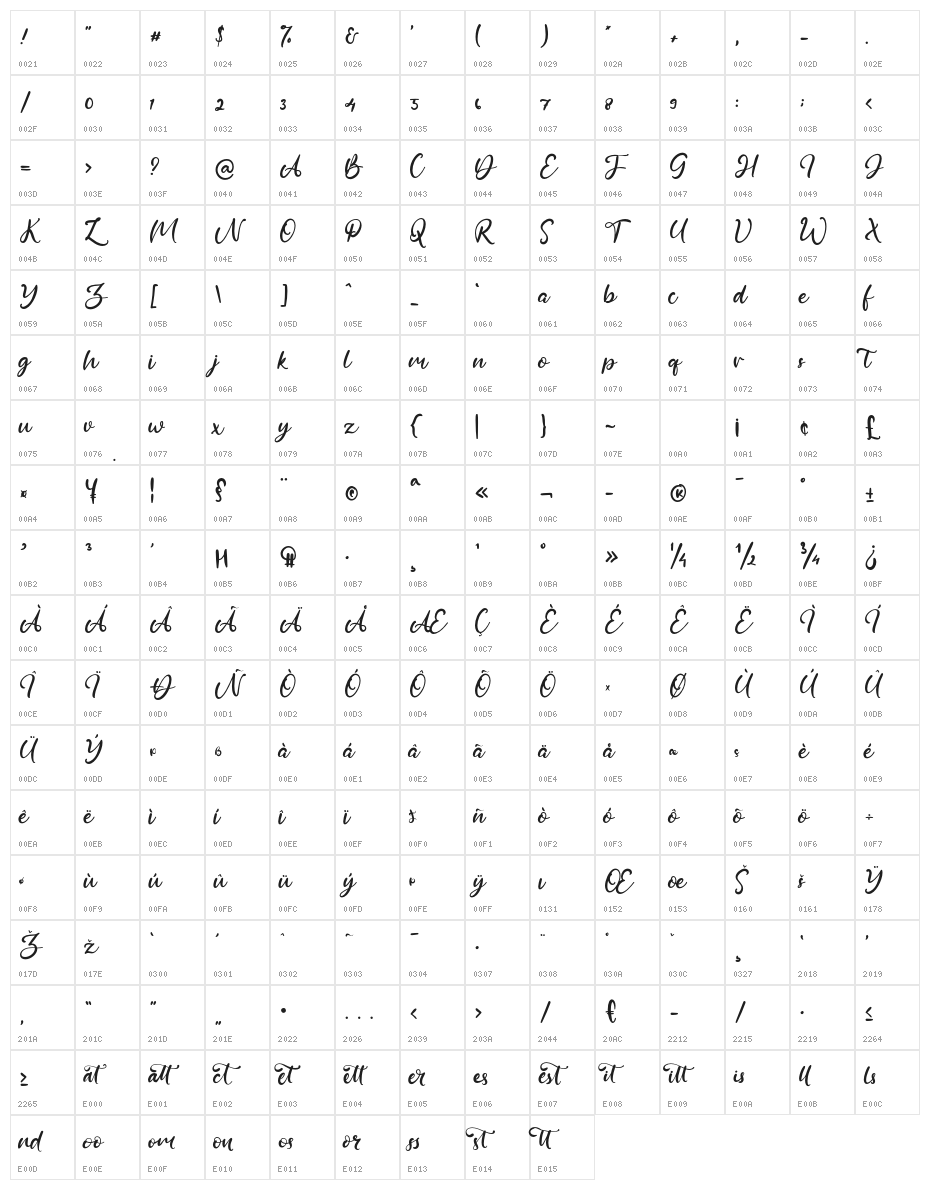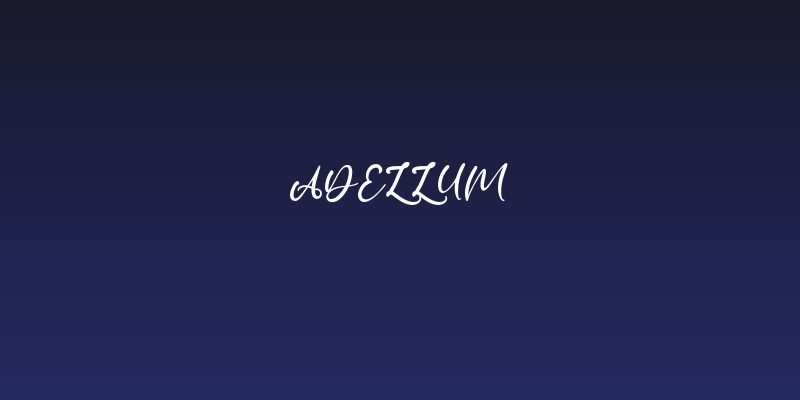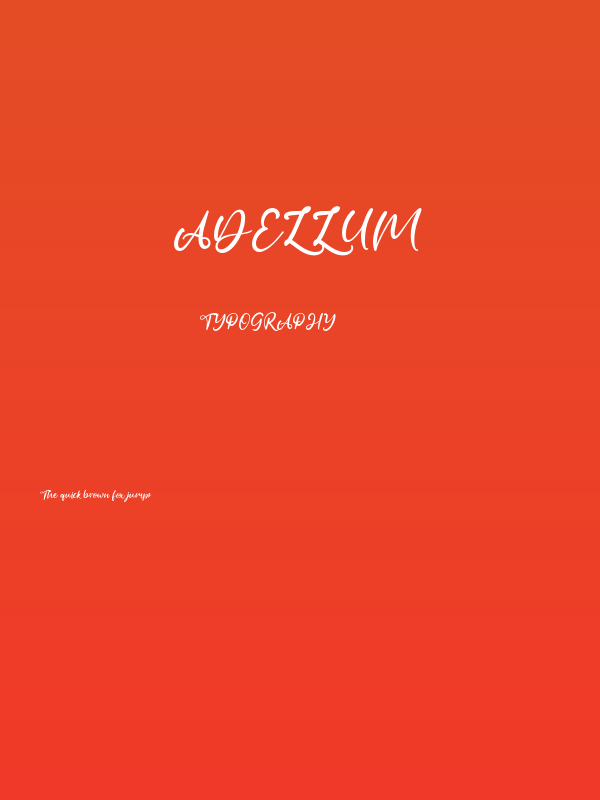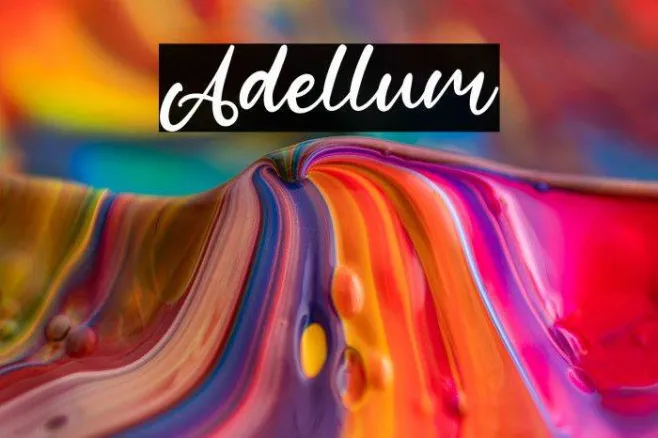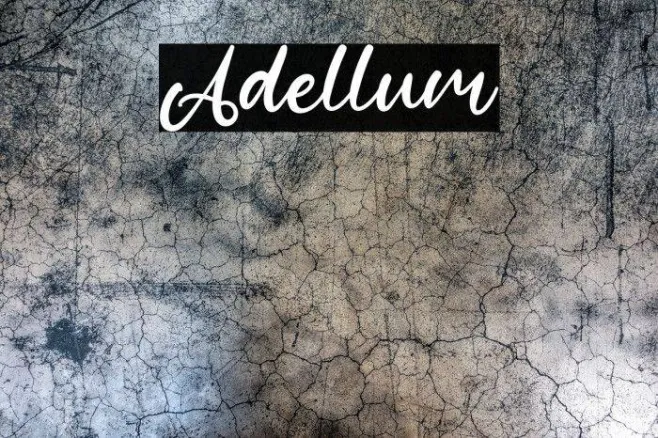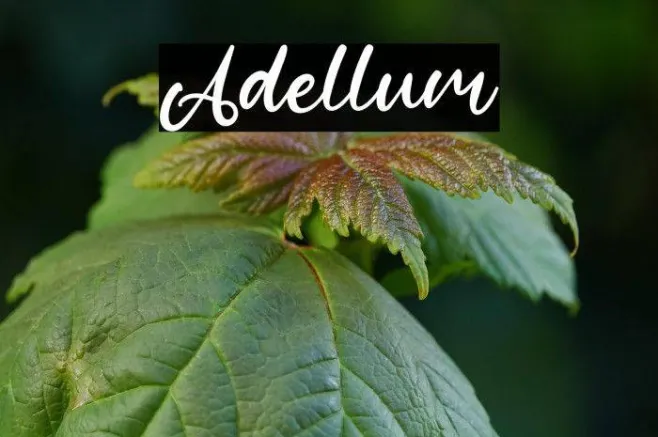
Adellum Font
Adellum Description
This font features a flowing, cursive style with elegant loops and swashes, giving it a handwritten appearance. The uppercase letters are bold and expressive, while the lowercase letters maintain a consistent flow, enhancing readability. The numerals and special characters are designed to complement the overall script style, maintaining the same fluidity and charm. The font's strokes vary in thickness, adding a dynamic and lively feel to the text. This font is ideal for projects that require a personal touch, such as invitations, greeting cards, and branding materials.
| Proposed Projects | Ideal for invitations, greeting cards, branding, and personal projects. |